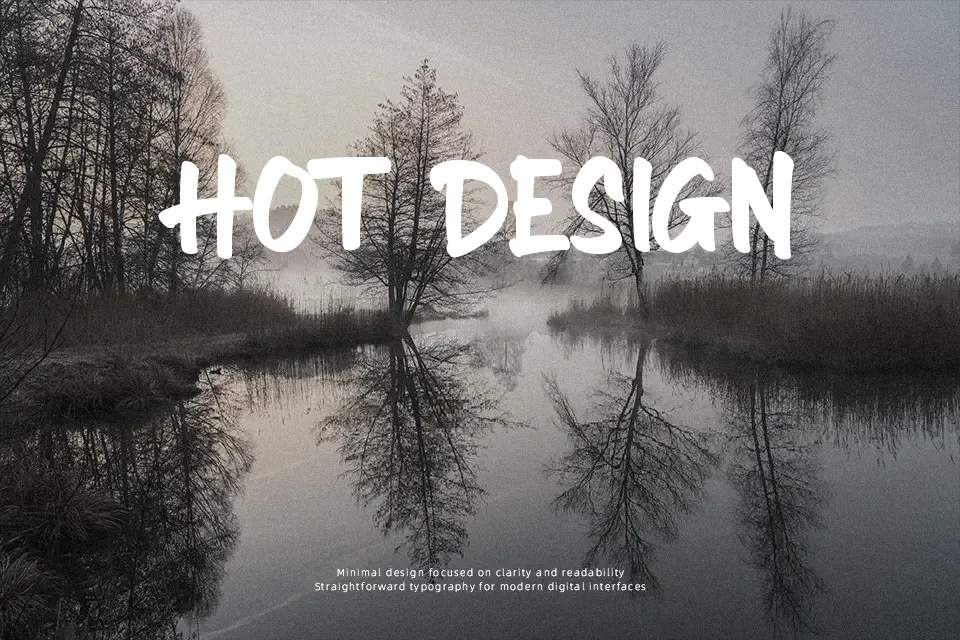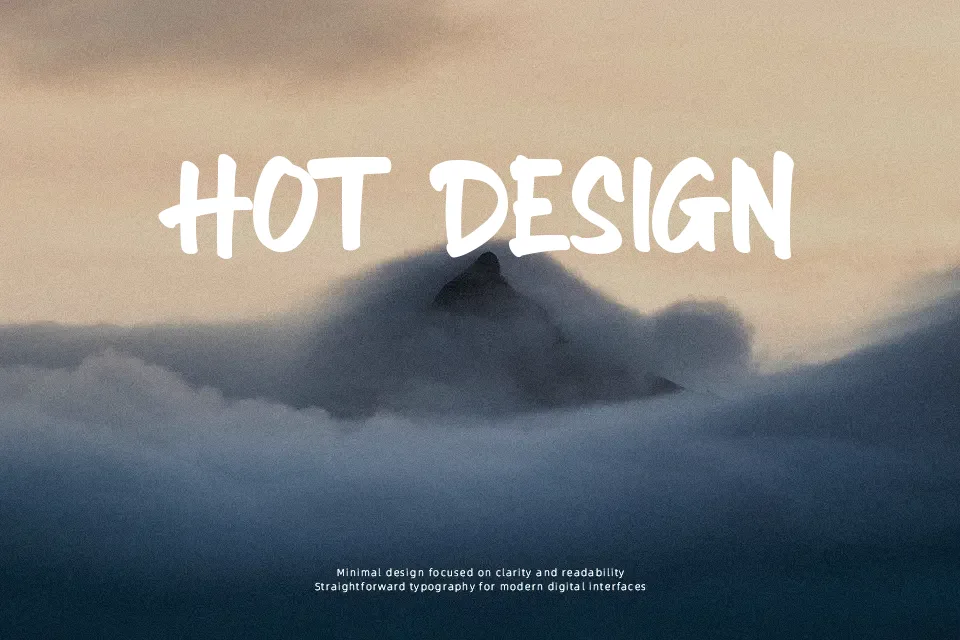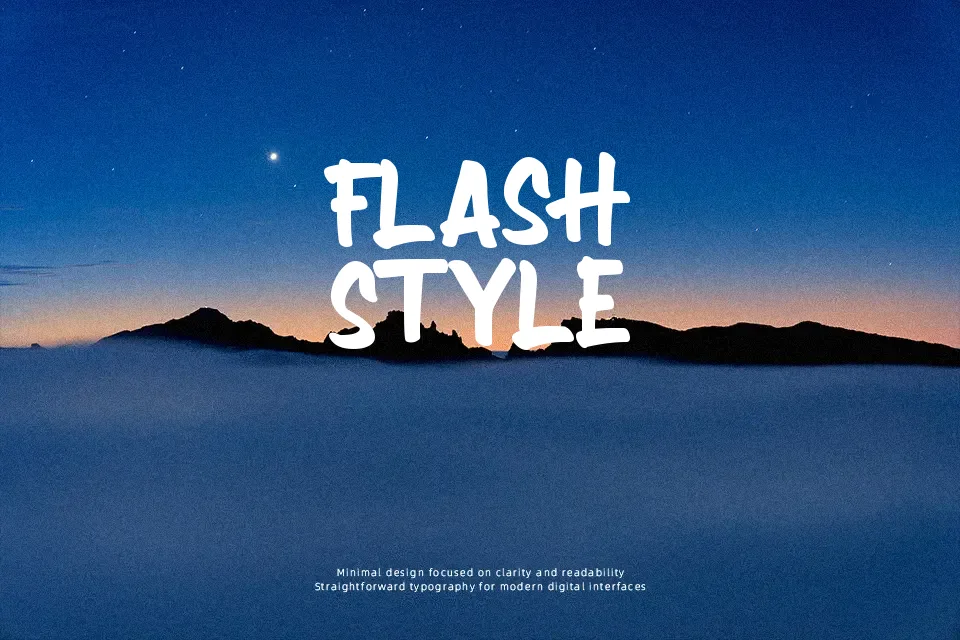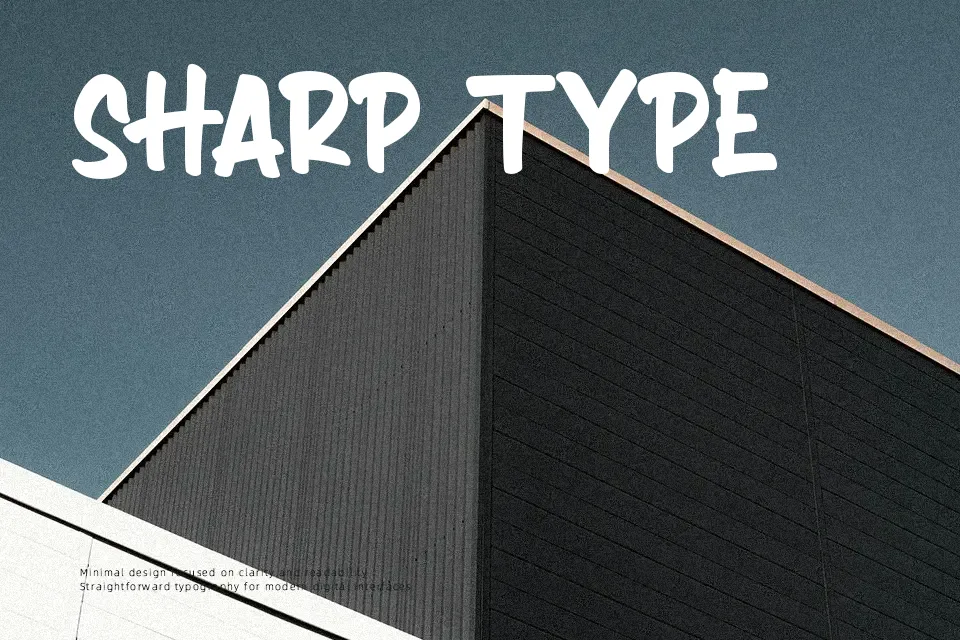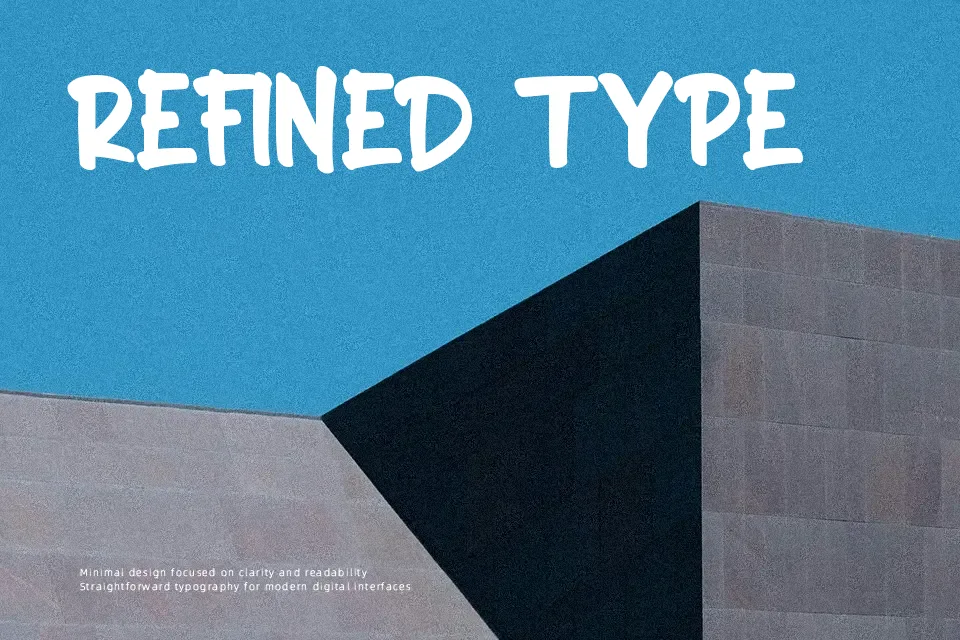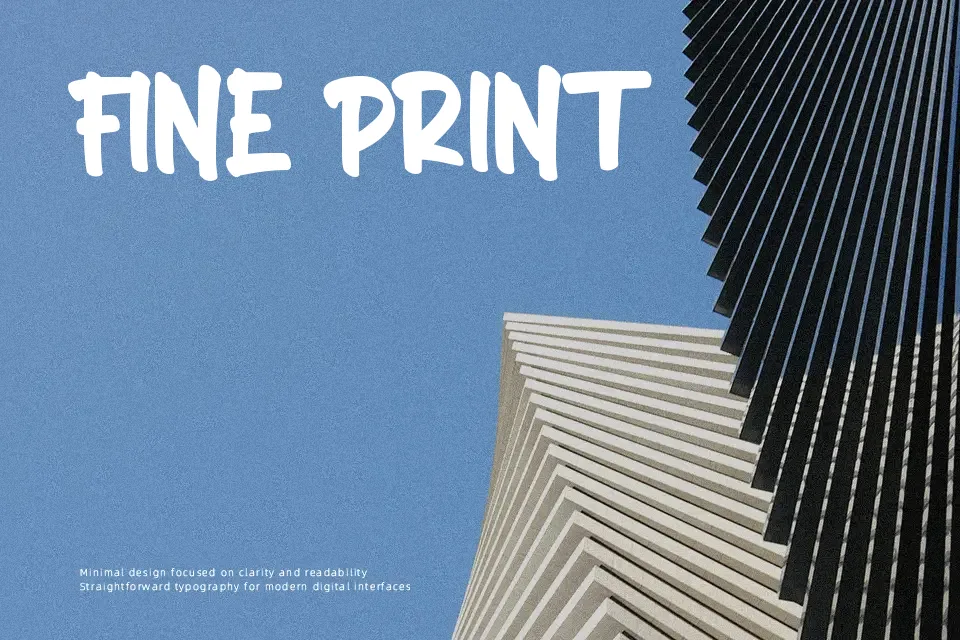
Super Discount Font
Designed by Mozatype
Characterized by heavyweight strokes and rounded contours, Super Discount Font delivers a playful hand-drawn structure reminiscent of quick marker lettering. The letterforms display modest contrast with slightly condensed proportions, creating a tight visual rhythm that maximizes punch in tight display areas. Generous internal counters preserve letterform clarity at prominent scales, making the typeface well suited for retail sale banners, video thumbnails, animation titles, and casual branding assets. However, the heavy weight and snug character spacing become difficult to navigate within dense editorial layouts or multi-line paragraphs. The design achieves optimal clarity when restricted to short, punchy headlines.
Best For: promotional sale banners, comic book covers, casual apparel graphics, children’s party invitations
Not Ideal For: long body text, corporate annual reports, small user interface captions, dense legal contracts
Perfect for advertising, headline, and kids, with a bold and cartoon style.